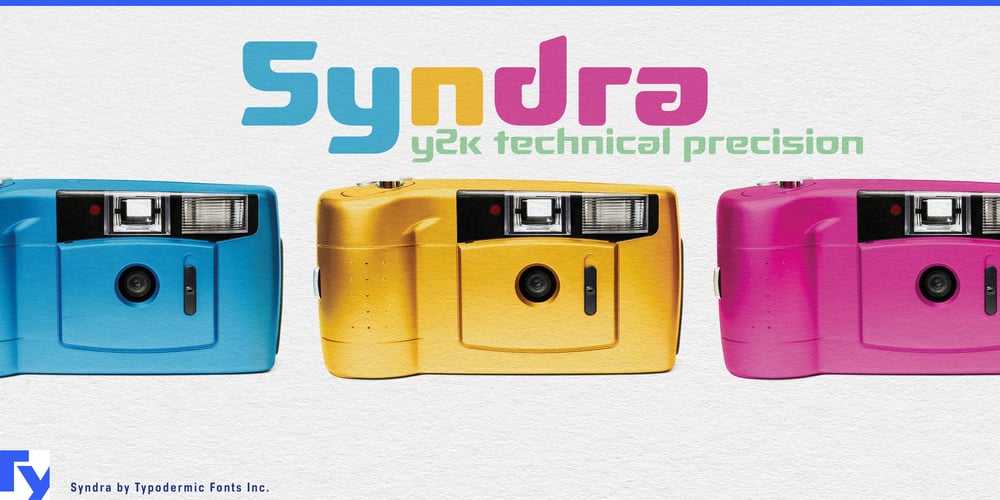
Syndra Font Family was designed by Ray Larabie and published by Typodermic. Syndra contains 7 styles and family package options. Step into the future with Syndra, a typeface that defies temporal boundaries. This is a time capsule from the Y2K era, catapulted into the present and beyond. Syndra’s letterforms aren’t merely designed; they’re engineered, each character a perfect fusion of form and function that seems to have emerged fully formed from a cutting-edge 3D printer.At first glance, Syndra’s cold, emotionless shapes might appear aloof, but don’t be fooled. This tireless character set works with machine-like precision to infuse your message with authority and technical gravitas. It’s the typographic equivalent of a clean room—sterile, efficient, and primed for innovation. Syndra doesn’t just speak the language of technology; it’s fluent in the dialects of progress. With OpenType fractions, numeric ordinals, and a plethora of currency symbols, it’s equipped to handle everything from pharmaceutical formulas to renewable energy reports. Its seven weights—ranging from gossamer-thin to extra-bold—provide the flexibility to fine-tune your message with scientific accuracy.But Syndra’s true power lies in its linguistic adaptability. This polyglot typeface supports an impressive array of writing systems, from Latin-based European languages to Vietnamese, Greek, and most Cyrillic-based scripts. It’s not just crossing borders; it’s erasing them, creating a unified visual language for our globalized, tech-driven world. Choose Syndra when your design needs to break free from the gravitational pull of the ordinary. It’s the perfect choice for brands positioning themselves at the forefront of innovation, for tech startups looking to make a bold statement, or for any project that needs to convey precision, efficiency, and a fearless embrace of the future.In a world where the line between human and machine grows increasingly blurred, Syndra stands as a testament to the beauty of technological progress. It doesn’t just communicate your message; it optimizes it, streamlines it, propels it into the future with the force of a thousand servers.